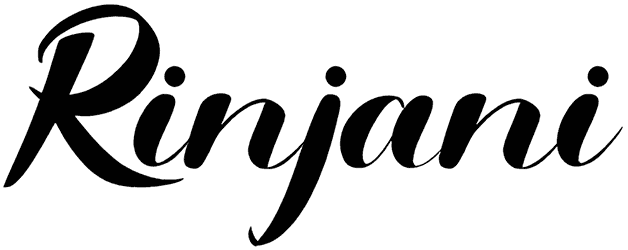
Rinjani Font
Rinjani helps you create stunning writing with the real human spirit and is the best choice for creating a unique brand. So even if you have hundreds of handwritten fonts in your collection, try this romantic font to experience professionalism and skill.
While adding a personal touch to your writings, this font has a symbolic mode that can create the most lasting works in posters and invitation cards to create a successful brand identity.